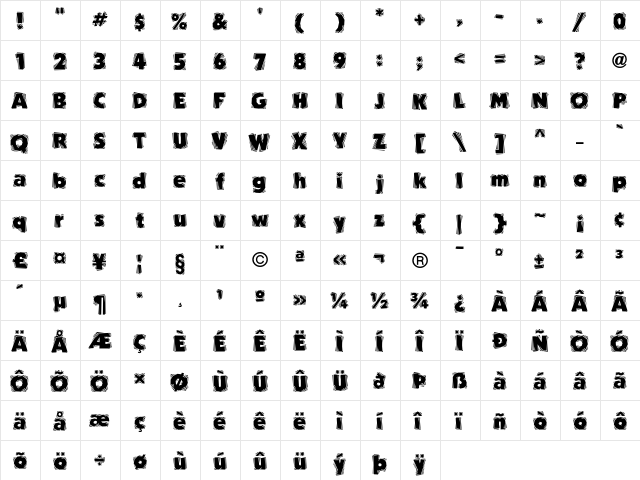
Carver Medium
Design Context for Carver Typeface
Carver is a composed and adaptable typeface that performs quietly and consistently across a wide range of design contexts.